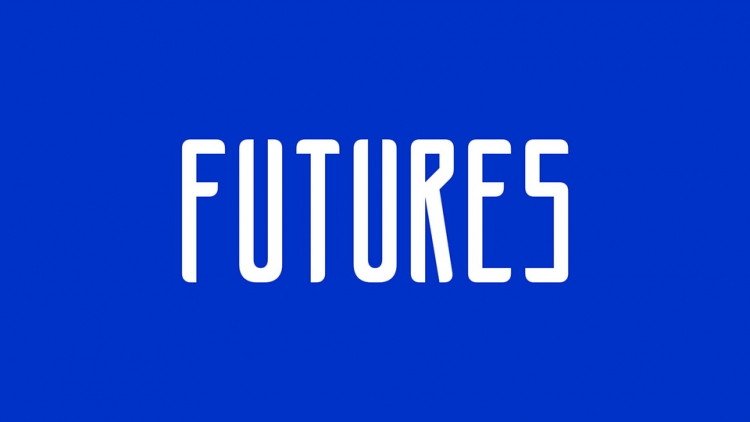
Futures Display Font
Futures Display Font is a beautiful modular tall display typeface. It comes with all caps letters, numbers and symbols.
Futures font is great for posters, headings and other editorial works.